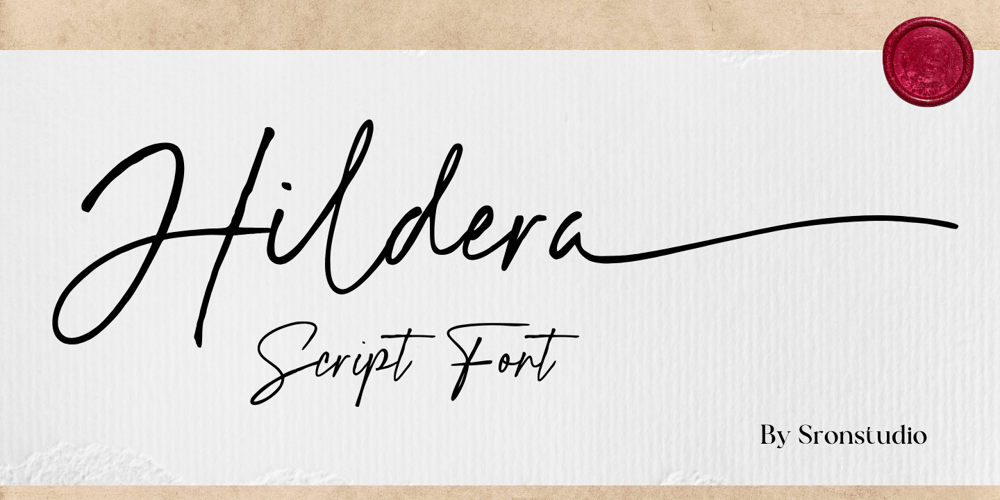
Hildera Font Family was designed by Muhamad Yusron Billah and published by Sronstudio. Hildera contains 1 styles and family package options. Introducing “Hildera,” a script font that beautifully embraces the harmony of elegance and raw texture. This unique typeface effortlessly blends delicate, graceful strokes with a touch of rough authenticity, creating a perfect balance between beauty and character. Ideal for projects that seek a distinctive and handcrafted aesthetic, “Hildera” adds a touch of sophistication with a hint of rugged charm, making it perfect for a wide range of creative endeavors.Features:- Lowercase Swash Alternates- Numeral & Punctuation- PUA Encoded- Multilingual support- Simple Installation- Work both on Mac and WindowsThank you very much ๐